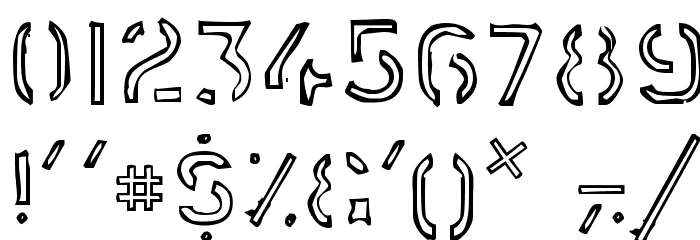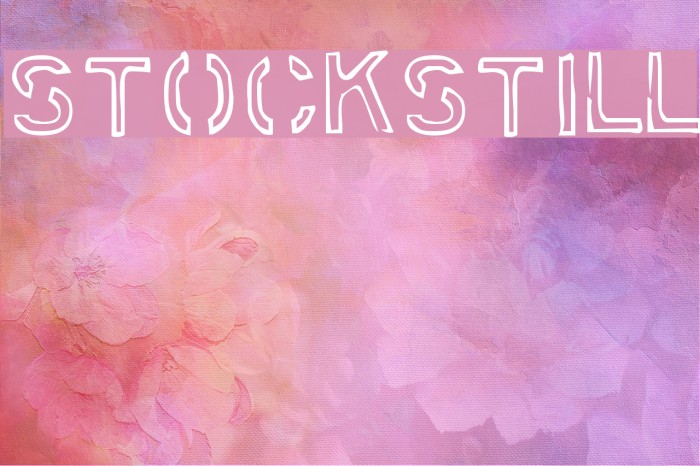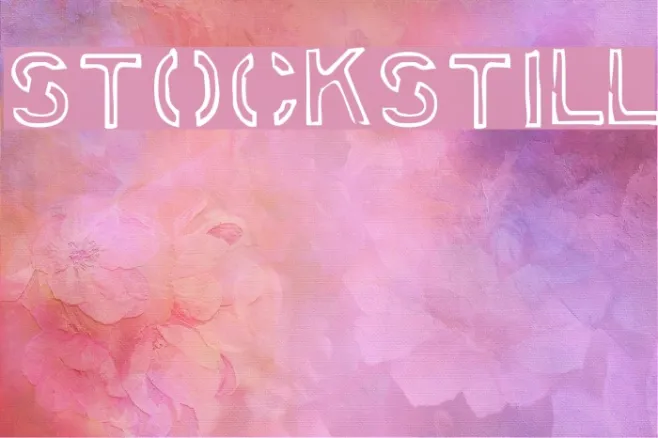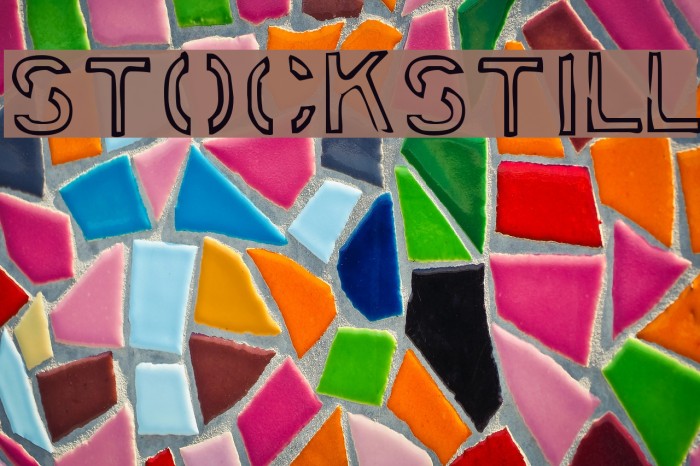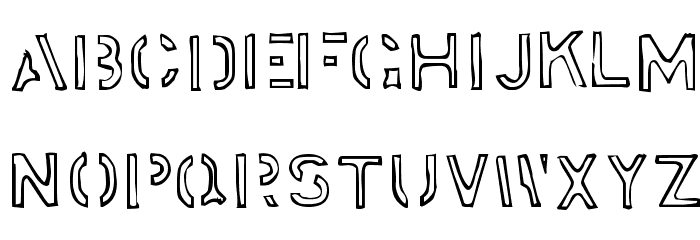
Stockstill Font
Stockstill Description
This font features a bold, geometric design with a stencil-like appearance. Each character is crafted with distinct cut-out sections, giving it a modern and industrial feel. The uppercase letters are uniform in height, while the numbers and special characters maintain the same stylistic approach. The font's unique structure makes it stand out, with clean lines and a strong presence. It's ideal for projects that require a contemporary and edgy look, such as branding, posters, and signage. The font's design ensures readability while adding a creative flair to any text.